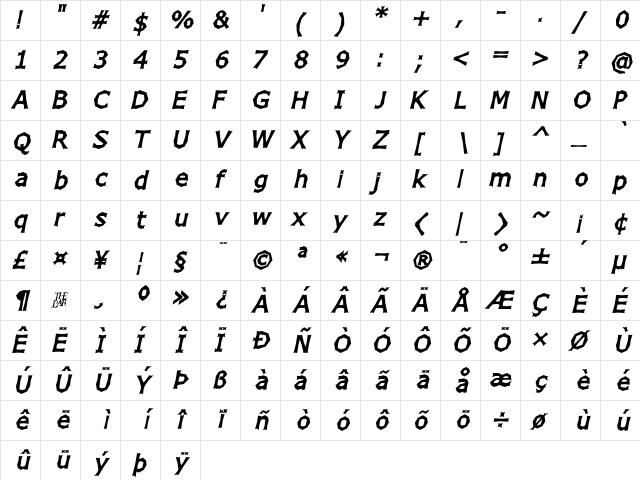
Chizz Wide High Italic
| Designer | Graham Meade & Apostrophe |
Design Context for Chizz Wide High Typeface
Chizz Wide High is a composed and adaptable typeface that performs quietly and consistently across a wide range of design contexts. The dynamic lean of this cut emphasises speed and emphasis in any layout.
Pro Tip: Try Chizz Wide High for annotation and caption copy alongside an upright companion — the contrast in angle creates a dynamic but ordered typographic system.